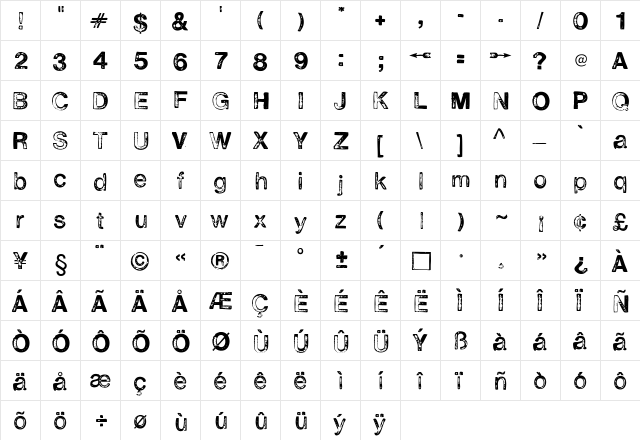
H2D2-Alevita Rough
Design Context for H2D2-Alevita Typeface
H2D2-Alevita trades polish for personality, using distressed and eroded forms to bring grit and attitude to creative work.
Suited to punk-influenced zines, underground music branding, streetwear, and raw, anti-corporate design.
Pro Tip: Pair H2D2-Alevita with intentionally raw or lo-fi design elements. Fighting against it with overly polished surroundings will undermine its personality.